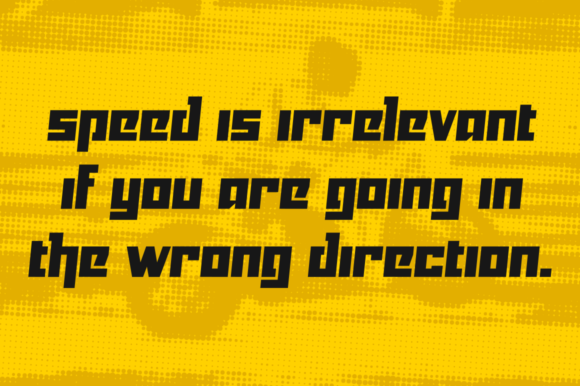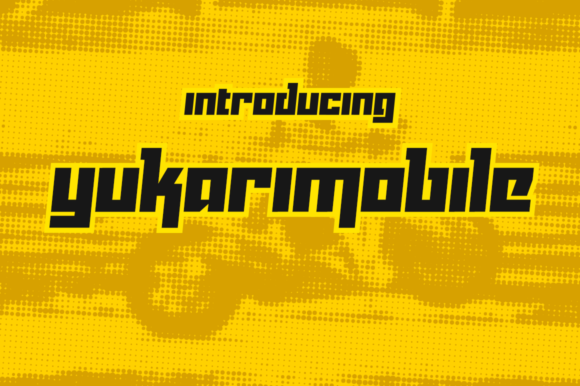
HomePersonal Use FreeYukarimobile Personal Use Free Yukarimobile FacebookTwitterPinterestWhatsApp 1 of 2 About Yukarimobile Font Yukarimobile is a fun and sporty display font, perfect for bold designs. This blocky, stylish free font was made by typographer Vic Fieger. DOWNLOAD NOW People also explored Christmas Catch Font Secron Font Marie Font Ondfuturs Font Beautiful Rainbow Font Farming Font Narrowly Font Bregia Font Circle Line Font 169 0 TagsYukarimobile Font Previous articleDaisy ScriptNext articleHelsinki LEAVE A REPLY Cancel reply Comment: Please enter your comment! Name:* Please enter your name here Email:* You have entered an incorrect email address! Please enter your email address here Website: Save my name, email, and website in this browser for the next time I comment. Personal Use Free Cinderella Personal Use Free Read more about this font Summer Pisces Personal Use Free Read more about this font Historise Personal Use Free Read more about this font Delions Personal Use Free Read more about this font BLOG To increase your work productivity, choose the most readable fonts. In today's fast-paced work environment, where digital communication and information consumption are integral to our daily routines, the choice of fonts can significantly impact... Best Fonts for YouTube Videos: Make Your Thumbnails Stand Out Where to Buy American Fonts Online in 2024 Elegant Wedding Invitation Fonts – Handwritten & Script Fonts